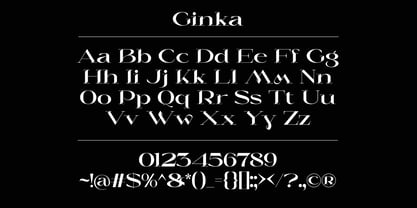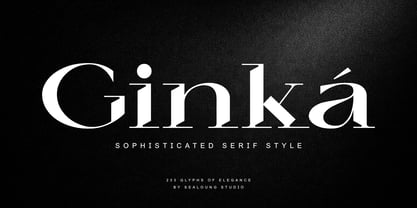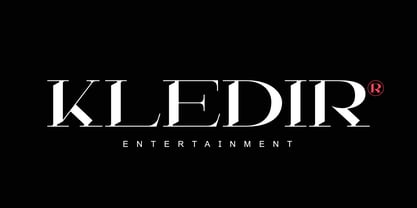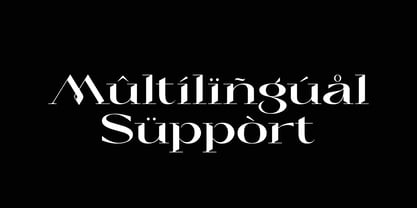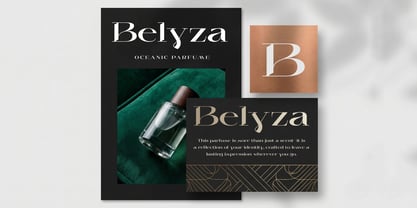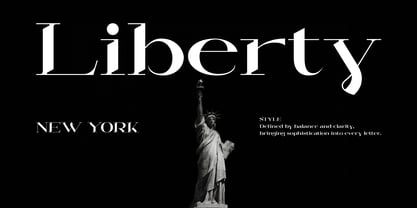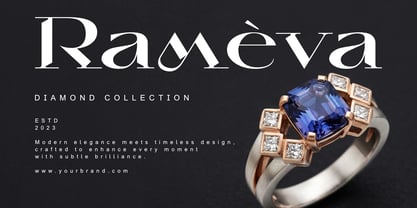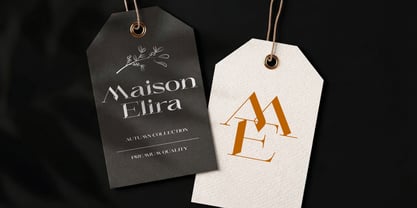
Ginka
The Ginka Font Family was designed by Saiful Anwar and published by Sealoung. Ginka contains 1 styles. More about this family
Ginka – Sophisticated Serif Style Ginka is a refined serif typeface designed to bring elegance and clarity into your creative work. With its clean structure, smooth curves, and balanced proportions, this font delivers a modern yet timeless aesthetic suitable for a wide range of design needs. Carefully crafted with attention to detail, Ginka offers a graceful visual presence that enhances typography without overwhelming it. The subtle contrast and distinctive letterforms make it ideal for projects that require a polished and stylish appearance. Features: 233 beautifully crafted glyphs Elegant uppercase and lowercase characters Clean, modern serif style Well-balanced spacing for readability Suitable for both digital and print designs Wish you enjoy our font. :)
My name is Saiful Anwar, We live in Mojokerto, Indonesia. We started my type foundry studio called Sealoung Studio in 2020. Sealoung is a Type Design Studio that makes unique fonts for your business purpose. We are always interested and focused on aesthetics, functionality, legibility, suitable for branding and broad design purposes. When creating a font, we usually start by exploring the characters first. Most of the time we draft letters by drawing them until it gets a character that has a deep personality. His works span a variety of styles and themes and have been trusted by major, local and international companies. Let's be a friend and follow us to get our products updates. Thank You!